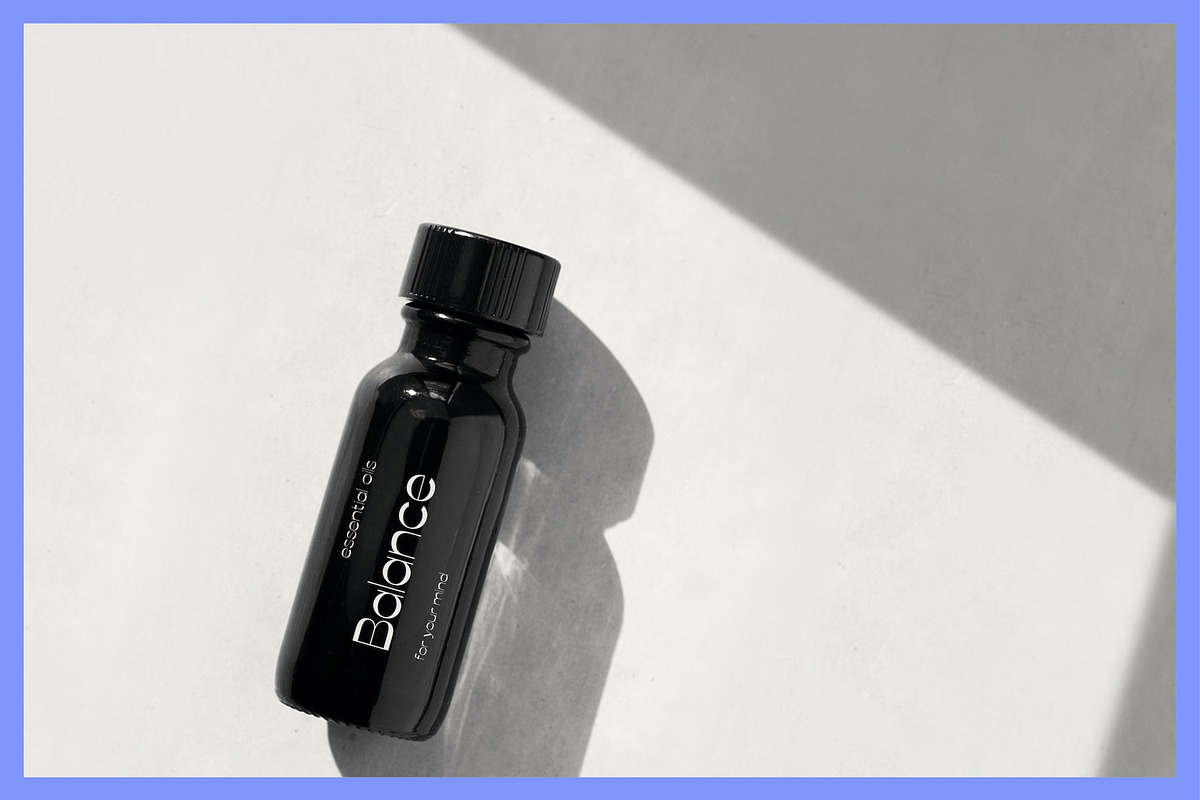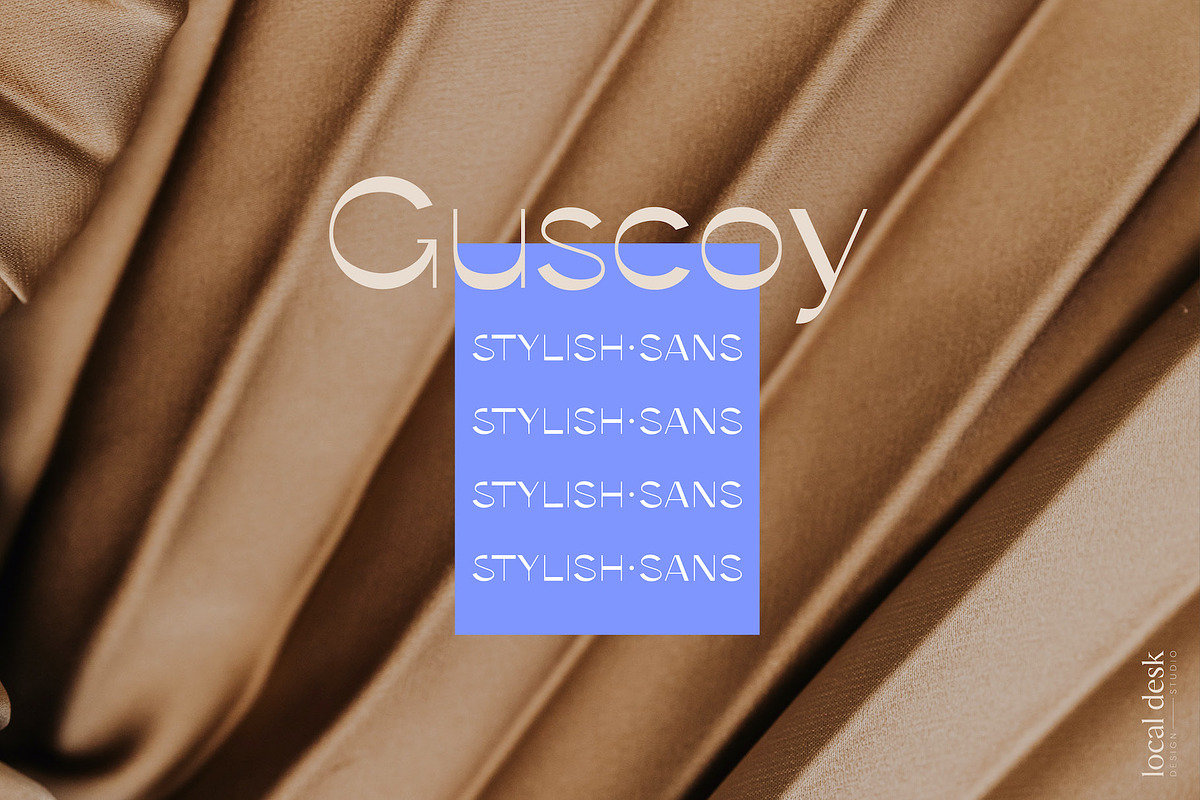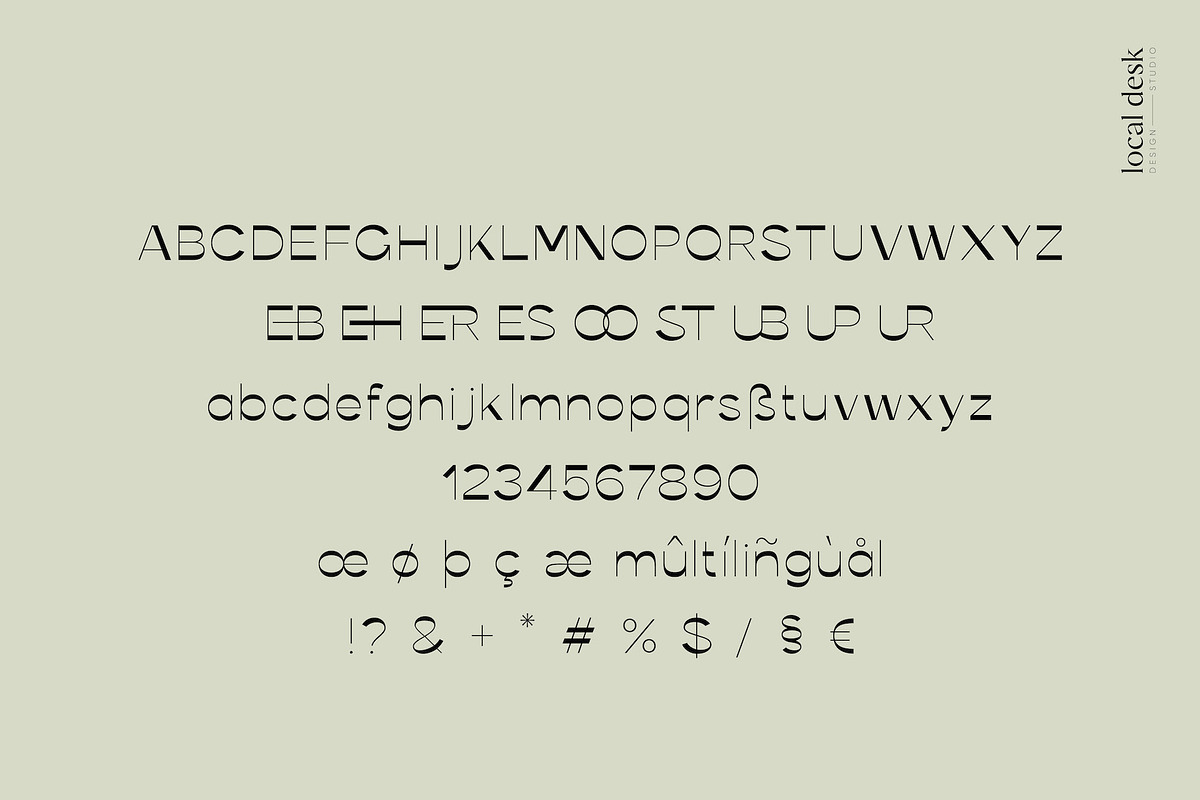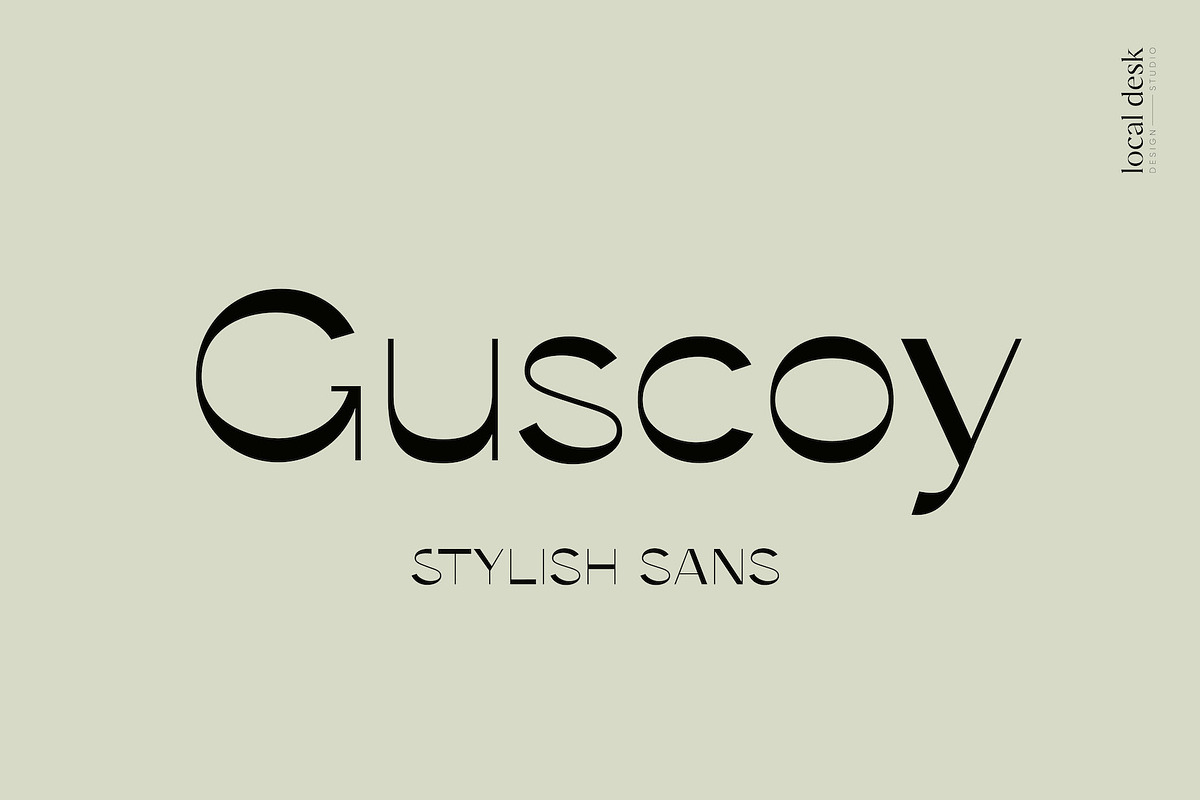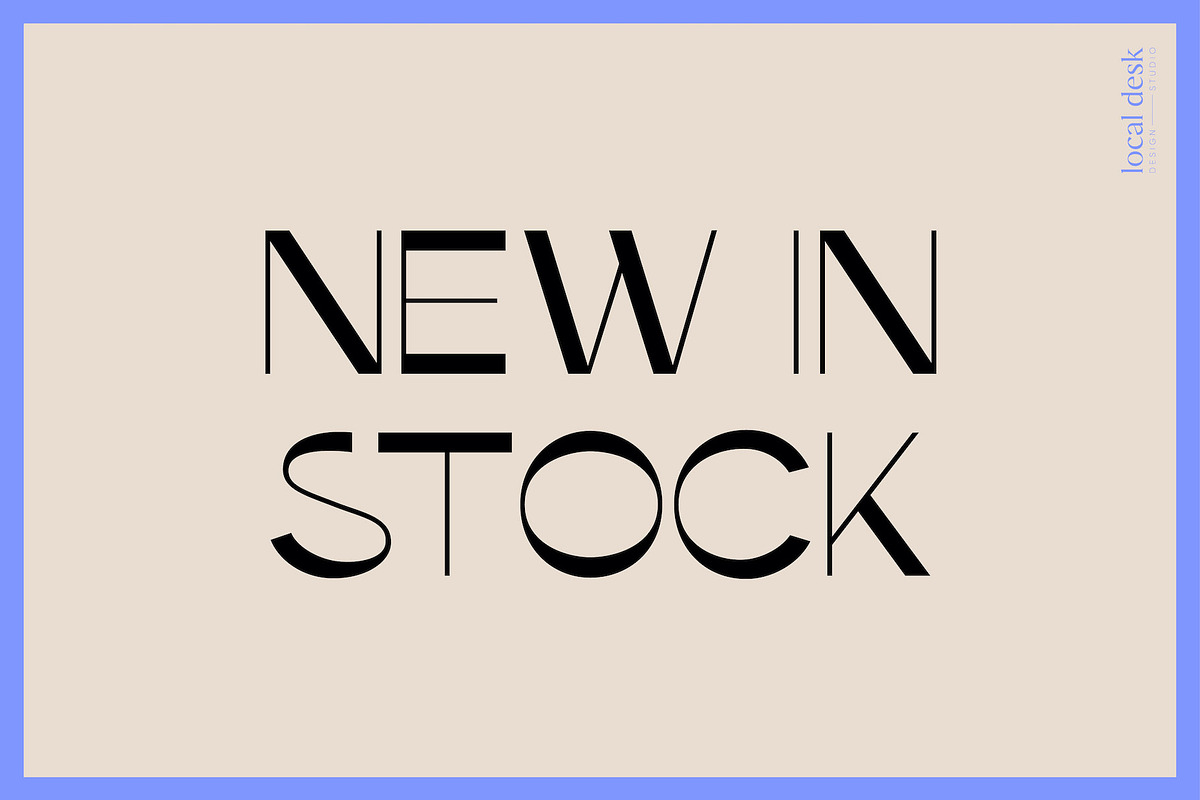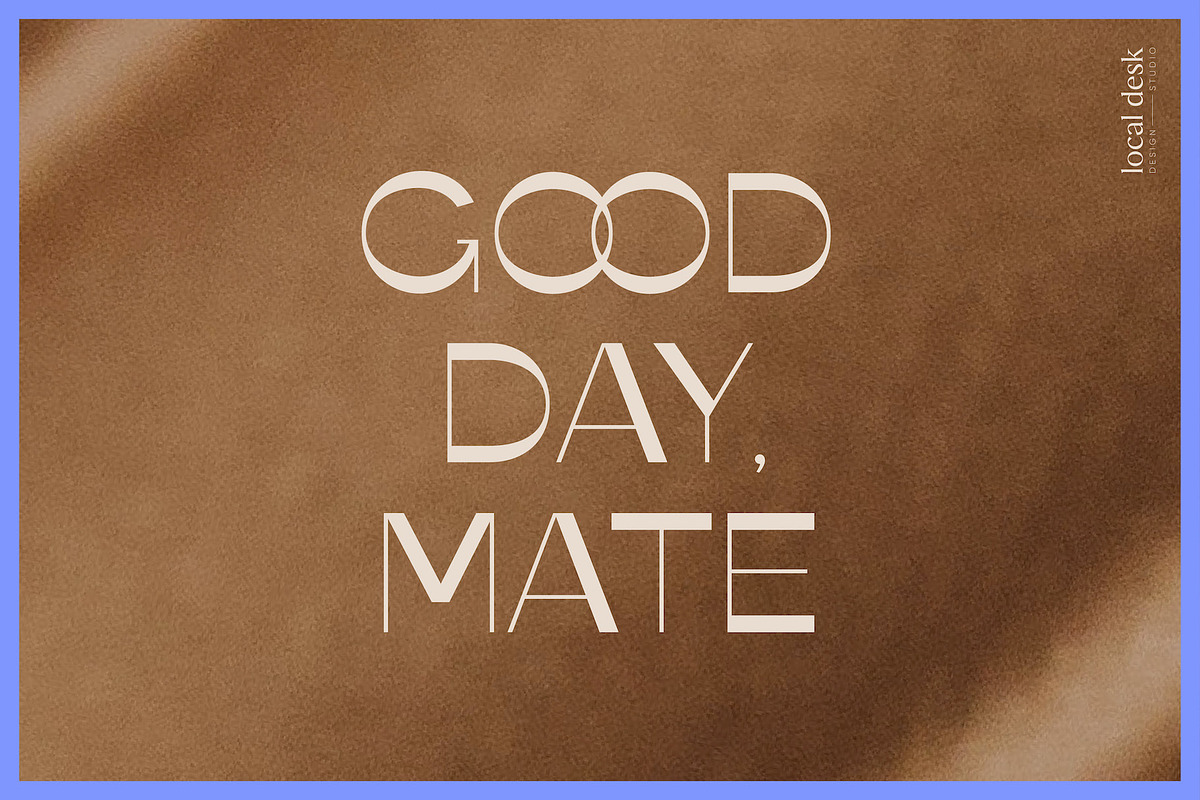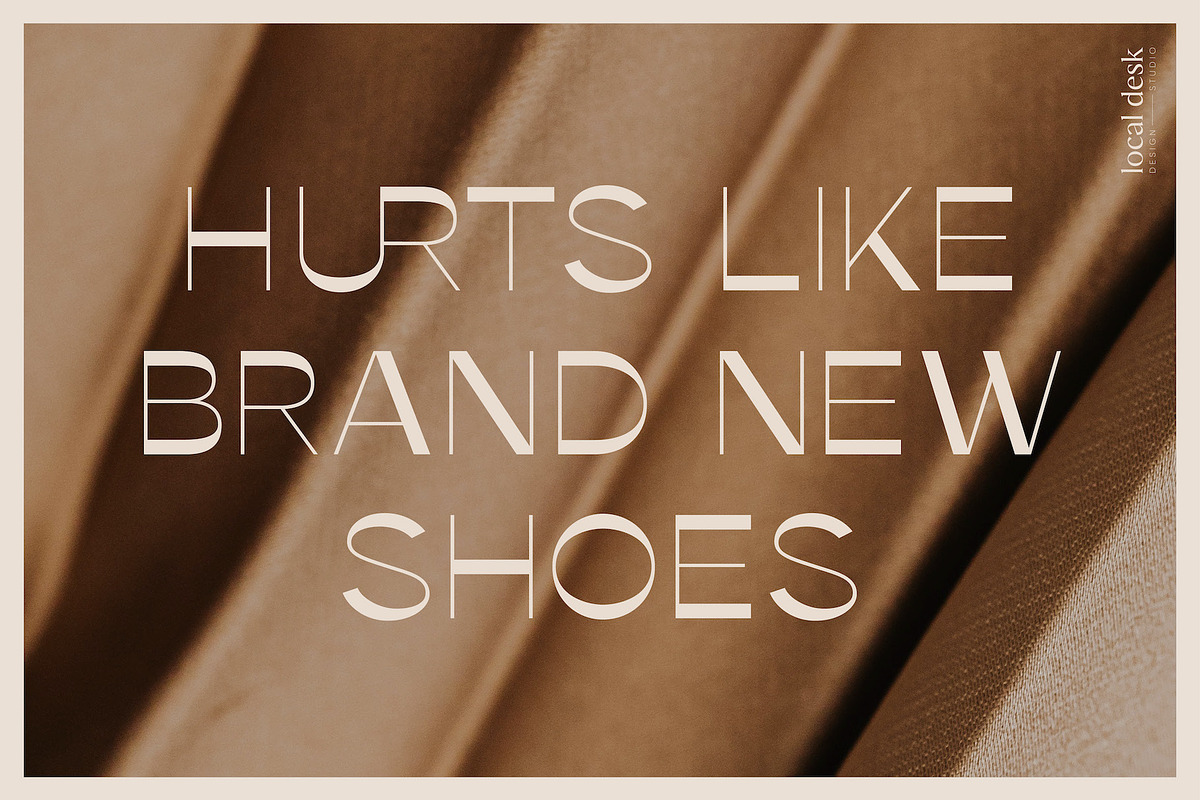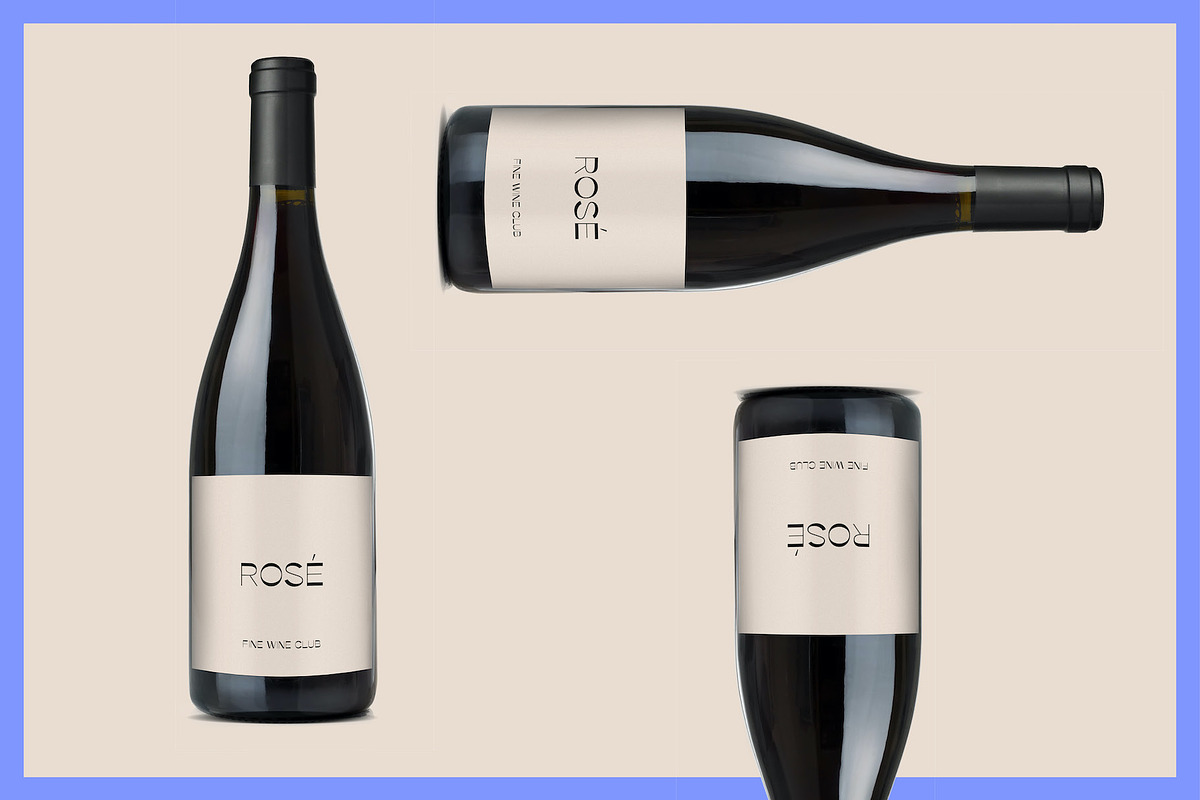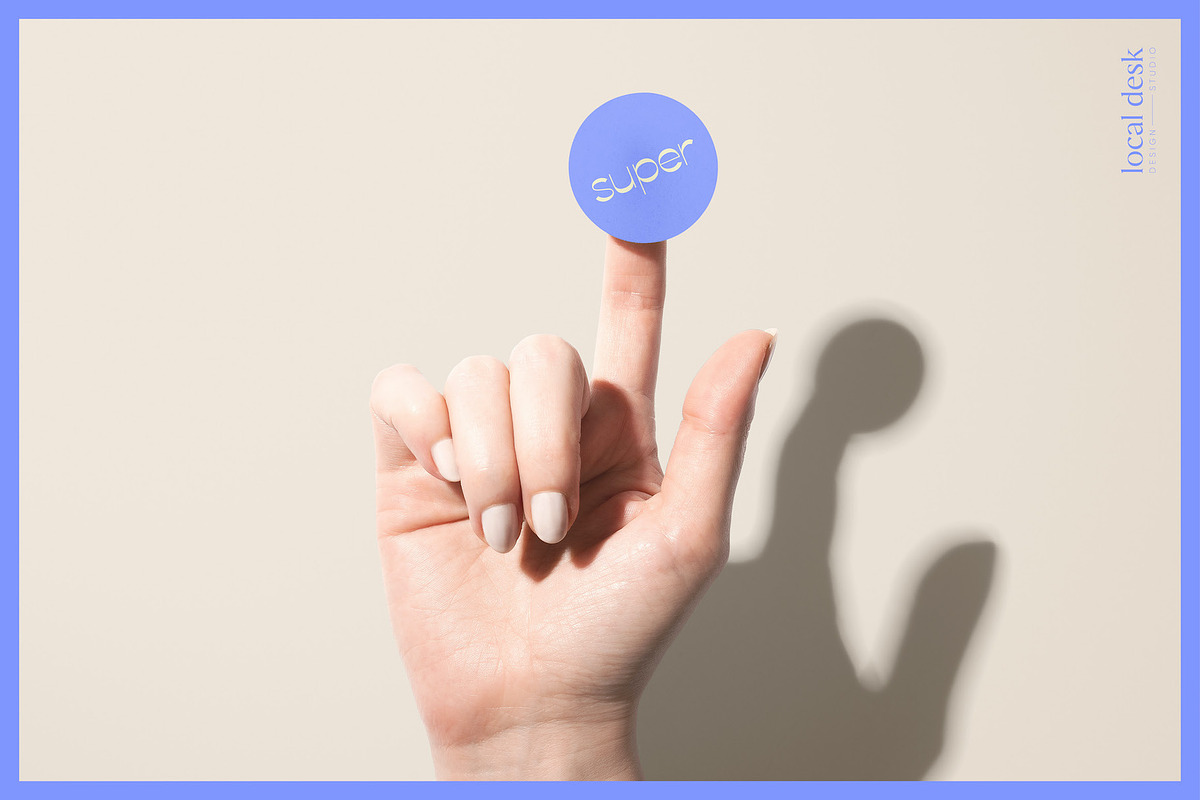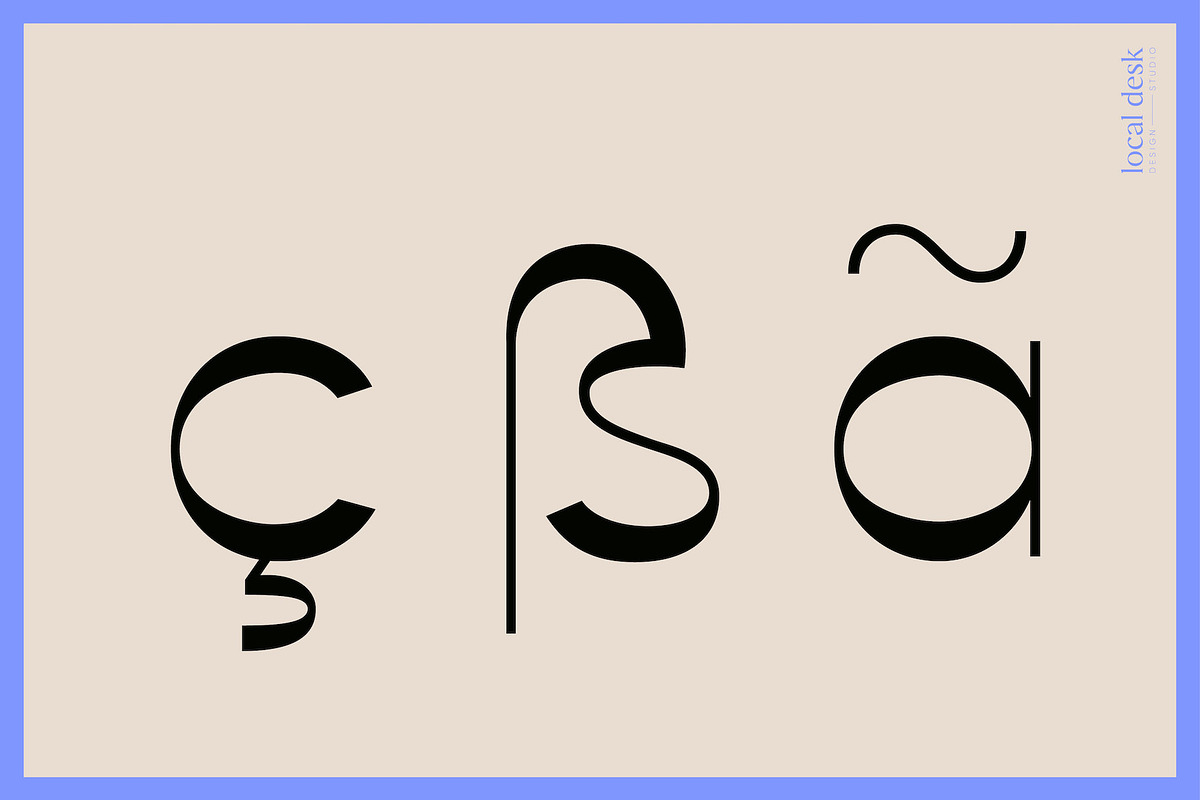
Guscoy – Stylish, High Contrast Sans
Guscoy is a modern sans serif typeface that sets itself apart by reverse high contrast of thick and thin lines. Unique curves and clean lines create this memorable font with a minimalist & stylish vibe. Guscoy is perfectly suited for designing modern, high end brands, contemporary packaging, unique quotes, timeless websites and so much more!
- Full Upper- & Lowercase Alphabet
- 9 Unique Ligatures
- Numbers + Punctuation
- Basic Non-English support